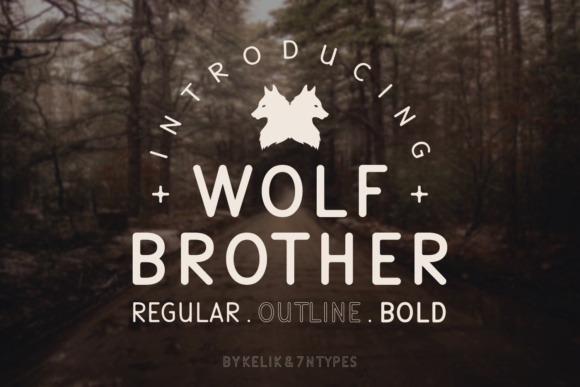
Wolf Brother Font
Introducing Wolf Brother, the captivating display font that fuses timeless elegance with a bold, nostalgic flair. Embark on a typographic journey where the past meets the present, creating designs that exude a mesmerizing aesthetic.
With its 3 distinct styles - Regular, Outlined, and Bold - Wolf Brother adapts seamlessly to a myriad of design projects. Its effortless versatility empowers you to craft classic text bodies, captivating headlines, and eye-catching titles that leave a lasting impression.
Wolf Brother's meticulously crafted glyphs and swashes provide a palette of artistic possibilities. Unleash your creativity and design extraordinary logos, vintage posters, retro branding, and enchanting invitations that evoke a sense of nostalgia and timeless charm.
Immerse yourself in the world of Wolf Brother, where typography meets artistry. Its PUA encoding grants you effortless access to an array of special characters, alternate glyphs, and ligatures, allowing you to weave intricate designs with unparalleled finesse.
Whether you're a seasoned designer or just starting your creative journey, Wolf Brother is the perfect font to elevate your designs to new heights. Its user-friendly format and comprehensive features make it a joy to use, ensuring a seamless and enjoyable experience.
Don't settle for ordinary fonts that blend into the background. Embrace the extraordinary with Wolf Brother, the display font that captivates, inspires, and transforms your designs into masterpieces. Join the creative revolution and let your imagination run wild. Download Wolf Brother today and witness the transformative power of typography!